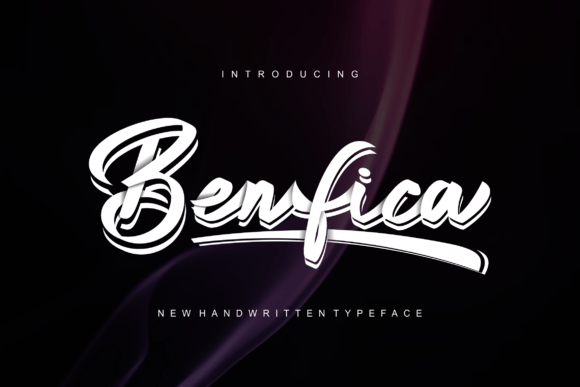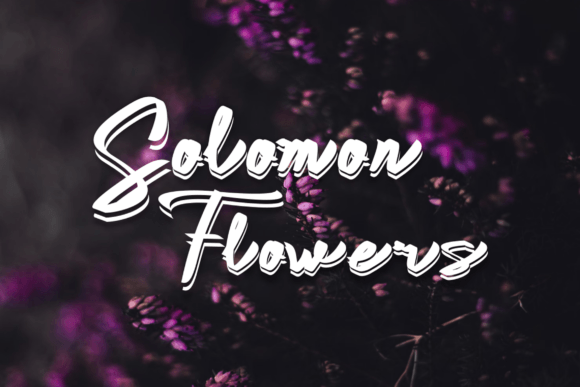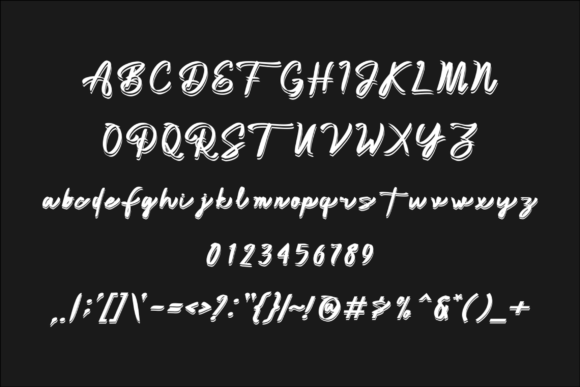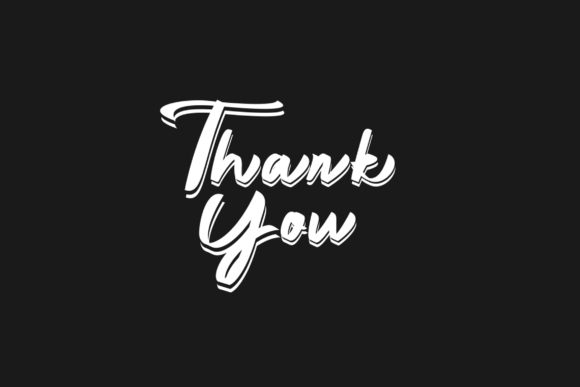
Benfica Font
About Benfica Font
“Benfica” is not just a font; it’s a carefully crafted work of art that adds a contemporary and refined touch to your projects. This exclusive handwritten font is designed to elevate the aesthetic of your designs, particularly those that call for a romantic and personalized feel.
The contemporary atmosphere of “Benfica” sets it apart, making it an ideal choice for projects that demand a touch of modern elegance. Its impeccable form reflects the meticulous attention to detail that went into its design, ensuring that every letter contributes to the overall beauty of the font.
When it comes to romantic and personalized projects, “Benfica” shines. Consider using it for wedding invitations, where the handwritten style adds a warm and intimate touch to the celebration. The font’s exclusivity makes it well-suited for special occasions, bringing a sense of uniqueness to every piece of text it graces.
The versatility of “Benfica” is another highlight. It adapts effortlessly to various design applications, allowing you to use it for cards, posters, and any project that benefits from a touch of refined handwritten charm. The font’s exclusivity extends to its ability to make each project feel tailor-made and special.
Imagine your wedding invitations adorned with the flowing elegance of “Benfica,” each letter contributing to the overall beauty of the message. The contemporary aesthetic ensures that your designs stay fresh and stylish, making a lasting impression on those who encounter them.
As an exclusive handwritten font, “Benfica” stands out in the realm of typography. Its contemporary appeal and impeccable form make it a valuable asset for designers seeking a font that goes beyond the ordinary. With “Benfica,” you’re not just using a font; you’re infusing your designs with a sense of sophistication and personalized beauty.